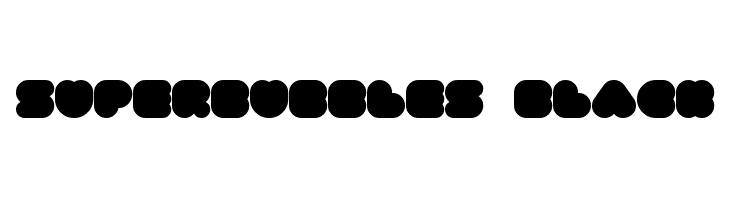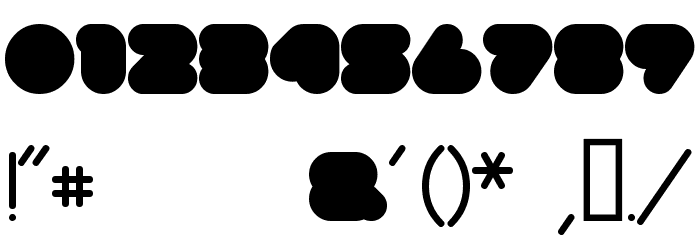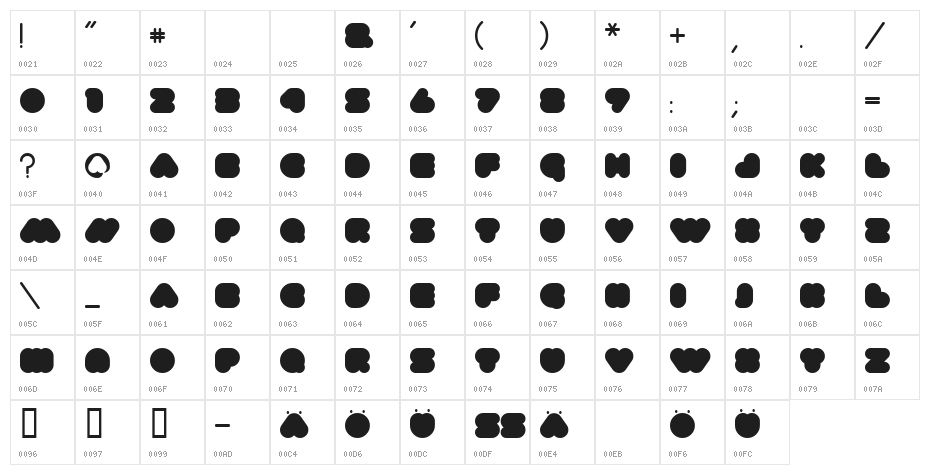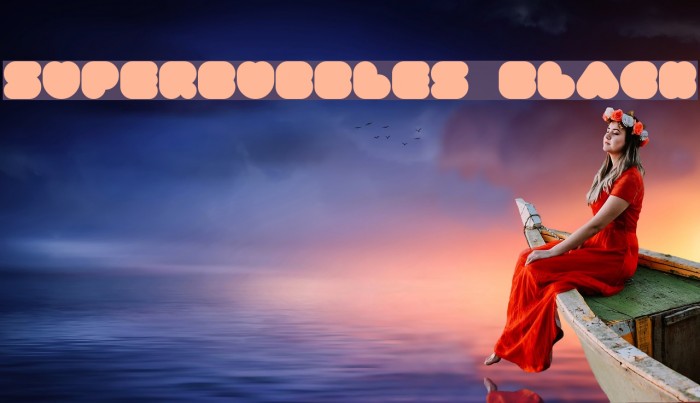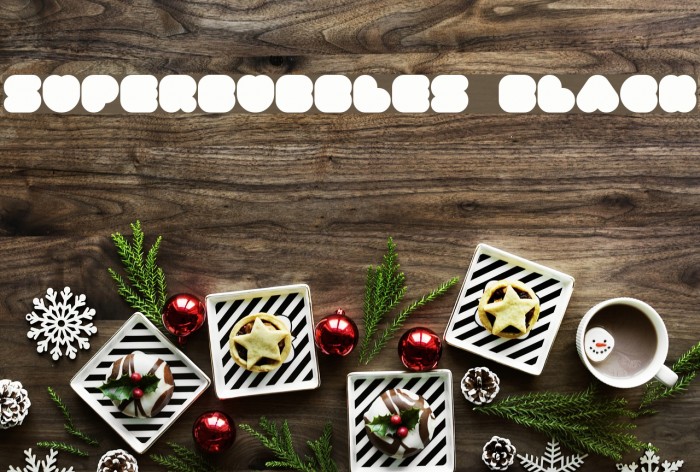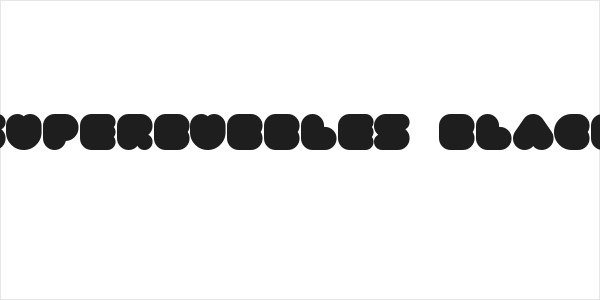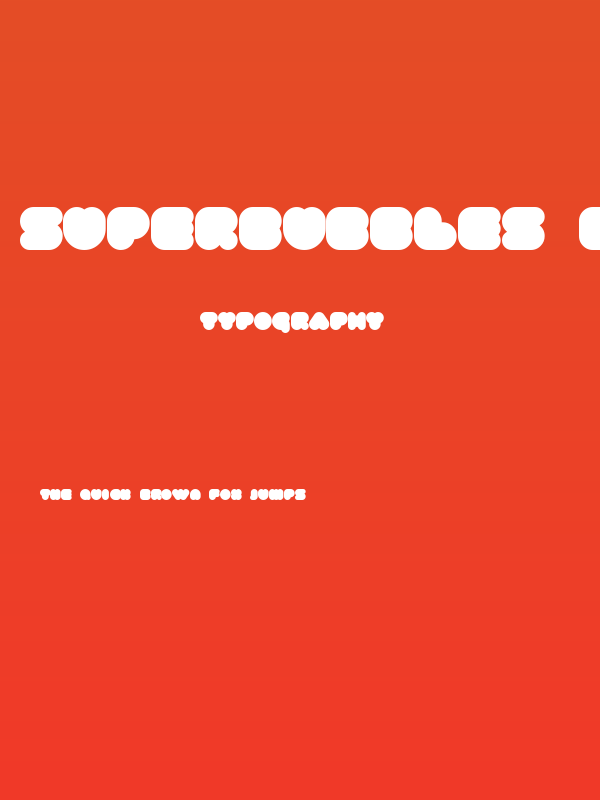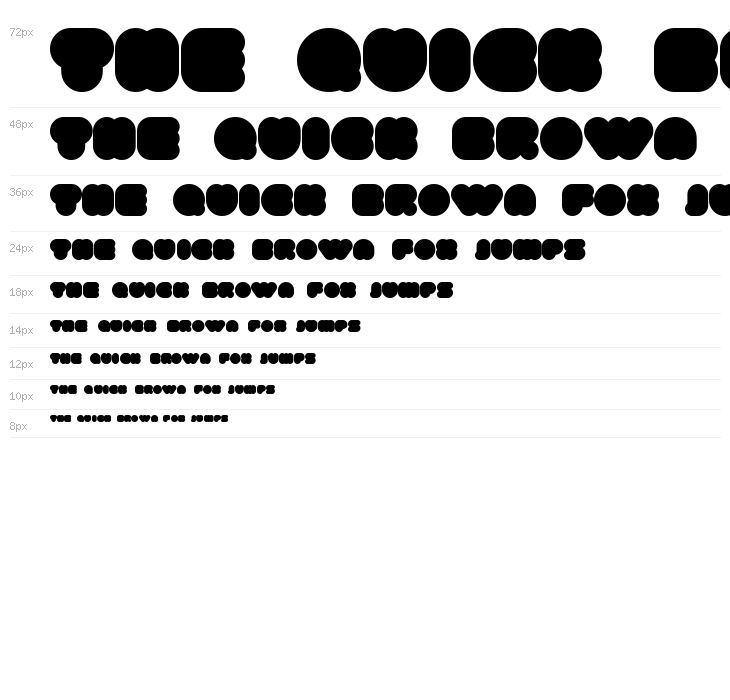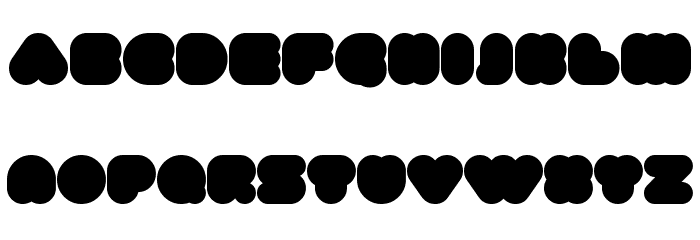
superbubbles Black Font
superbubbles Black Description
This font features a bold, playful design with rounded, bubble-like characters that create a sense of fun and whimsy. The letters are heavily stylized, with each character appearing as if it is inflated, giving a three-dimensional effect. The uniform thickness of the strokes contributes to a cohesive look, while the exaggerated curves and soft edges enhance its playful nature. This font is highly decorative, making it ideal for projects that require a standout, eye-catching typeface. The characters are evenly spaced, ensuring readability despite their unconventional shapes.
| Overall Style | Playful, Whimsical, Decorative |